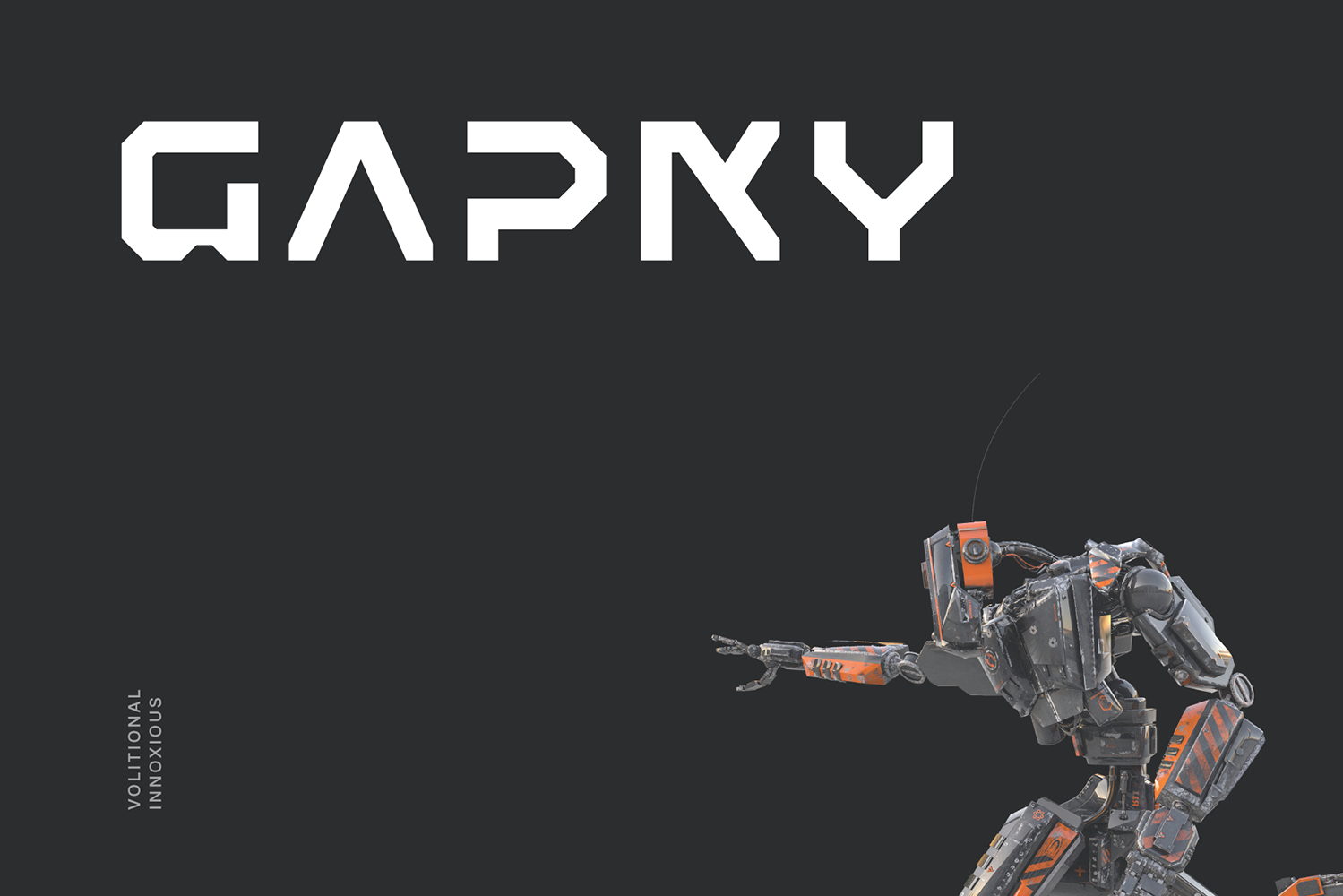
Gapky Futuristic Tech Font
Gapky is a volitional innoxious tech display typeface apt for headline, editorial, branding, packaging, printed materials and typographic applications. Ultra modern character blend with simplicity of smooth rigid curves, subliminal contour and monoline interpretation introduced futurism sensuality through restraint form. 150+ glyphs with ligatures and fractions provided in opentype .otf and .woff format.